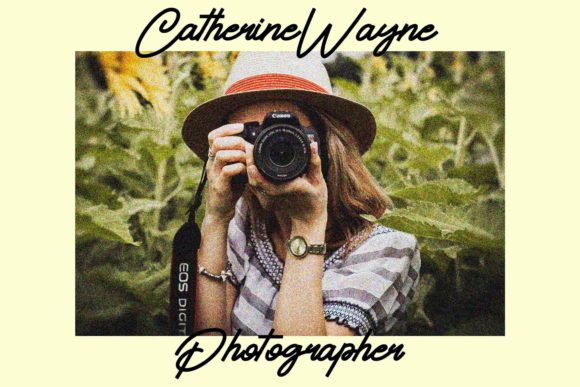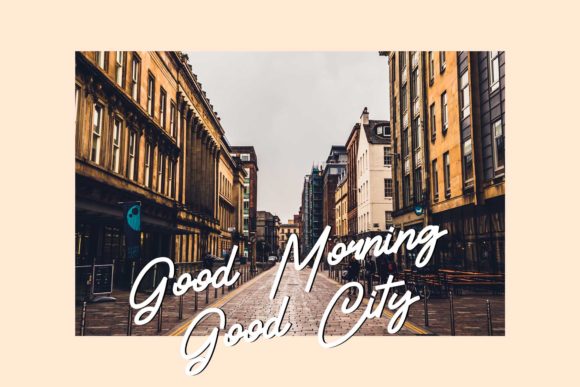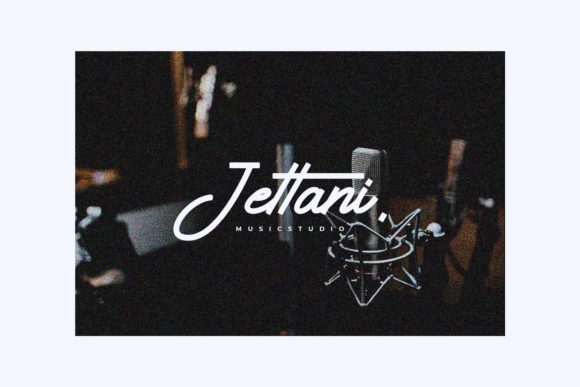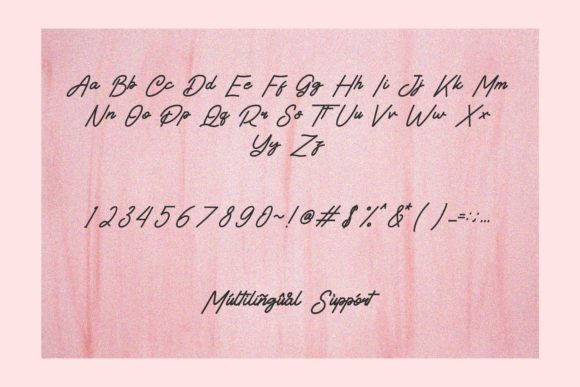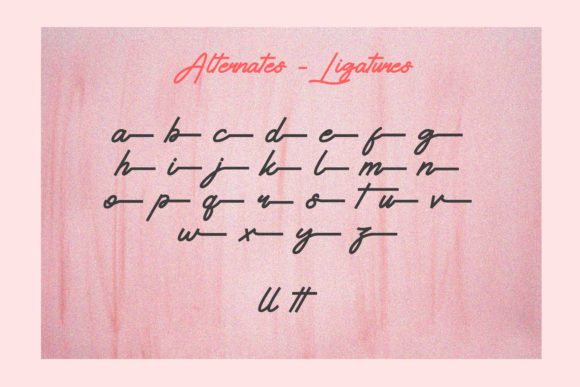
Introducing Hayadoka Font: Elevate Your Designs with Elegant Cursive Script
In the world of typography, fonts play a crucial role in conveying the tone and personality of a brand or design. For designers and crafters looking for a unique and stylish font to elevate their projects, Hayadoka Font is an excellent choice. This stunning cursive script font is designed to make a statement, with bold characters and smooth curves that exude elegance and sophistication.
What is Hayadoka Font?
Hayadoka is a beautiful cursive script font that features bold, flowing characters perfect for making a statement in fashion branding, editorial designs, and more. Its smooth curves and fluid lines create a sense of movement and energy, making it ideal for designs that require a touch of dynamism. Whether you’re working on a fashion magazine, a luxury brand’s marketing materials, or a personal project, Hayadoka Font is sure to impress.
Key Features of Hayadoka Font
- Cursive Script Style: Hayadoka Font boasts a stunning cursive script style that’s perfect for creating elegant and sophisticated designs.
- Bold Characters: The font features bold characters that are sure to grab attention and make a statement.
- Smooth Curves: The smooth curves and fluid lines of Hayadoka Font create a sense of movement and energy, adding a touch of dynamism to your designs.
- Fashion and Editorial Friendly: Hayadoka Font is specifically designed for fashion branding and editorial designs, making it an excellent choice for designers working in these industries.
Why Choose Hayadoka Font?
With so many fonts available, why choose Hayadoka Font for your next project? Here are just a few reasons why designers and crafters love this stunning font:
- Unique and Stylish: Hayadoka Font offers a unique and stylish alternative to traditional fonts, allowing you to stand out from the crowd and create designs that truly pop.
- Versatile: This versatile font can be used in a wide range of design applications, from fashion branding and editorial designs to packaging and more.
- Elegant and Sophisticated: Hayadoka Font exudes elegance and sophistication, making it perfect for designs that require a touch of luxury and refinement.
How to Use Hayadoka Font in Your Designs
Ready to add Hayadoka Font to your design toolkit? Here are a few tips for incorporating this stunning font into your projects:
- Pair with Neutral Backgrounds: Let Hayadoka Font take center stage by pairing it with neutral backgrounds that allow the font to shine.
- Use for Headings and Titles: Hayadoka Font is perfect for headings and titles, where its bold characters and smooth curves can make a statement.
| Font Name | Hayadoka Font |
| Author | jadatype |
In conclusion, Hayadoka Font is a stunning cursive script font that’s perfect for designers and crafters looking to elevate their designs with a touch of elegance and sophistication. With its bold characters, smooth curves, and versatile design, this font is sure to become a favorite in your design toolkit. So why wait? Add Hayadoka Font to your projects today and experience the difference for yourself.
Whether you’re working on a fashion brand, editorial design, or personal project, Hayadoka Font is confident to deliver impressive results. Its unique and stylish design, combined with its versatility and elegance, make it an excellent choice for designers looking to make a statement. So go ahead, give Hayadoka Font a try, and discover the power of beautiful typography in your designs.